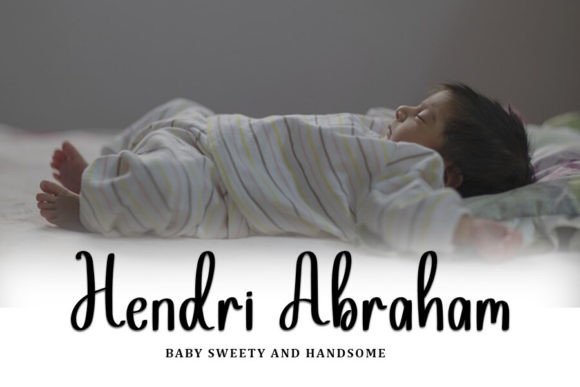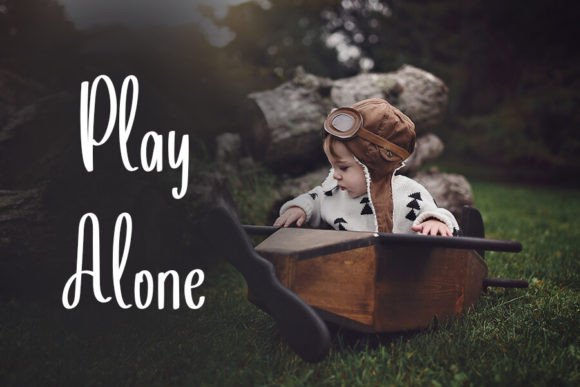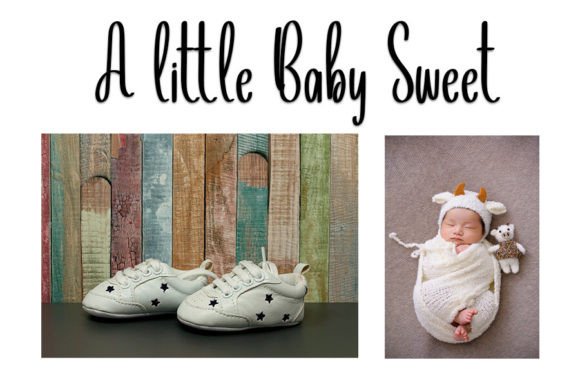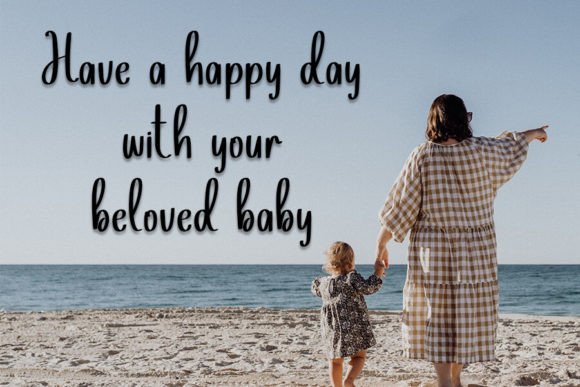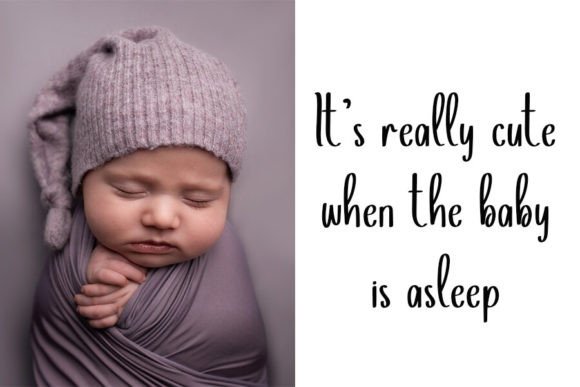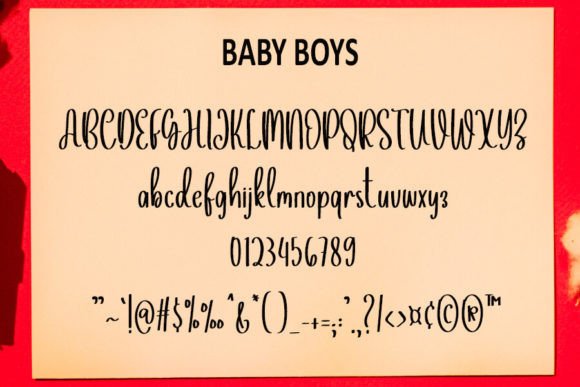
Meet the Perfect Companion for Your Creative Projects
As designers, we’ve all been there – staring at a blank canvas, trying to bring our ideas to life. Sometimes, it’s just a matter of finding the right tool to spark inspiration. For me, it was discovering the Baby Boys Font. Its stylish handwritten feel instantly caught my attention, and I knew I had to learn more.
Baby Boys Font is a beautifully crafted, contemporary font that draws inspiration from timeless classic calligraphy. With its balanced and varied strokes, it’s the perfect addition to any project that requires a touch of elegance and sophistication. Whether you’re designing a wedding invitation, a children’s book, or a brand identity, Baby Boys Font is sure to elevate your work and make it stand out.
Baby Boys Font Key Features
- Font Family: A unique, playful script font designed for baby-related products and applications.
- Unique Characteristics: Features a hand-drawn, cursive style with whimsical flourishes and subtle texture, adding a personal touch to designs.
Designer Review: Baby Boys Font
Overall, I think Baby Boys Font has some great qualities that could make it a fun addition to any project. ✨ Here are a few things that stood out to me:
- Unique and playful style: Baby Boys Font has a fun, whimsical feel that’s perfect for projects that need a lighthearted touch.
- Good for display text: The font is well-suited for headlines and titles, where its bold and eye-catching style can really shine.
- Customizable: Baby Boys Font offers a range of customization options, including different font weights and styles, which can be useful for projects where you need to match the font to a specific design aesthetic.
However, there are also some limitations to consider: ⚠️
- May not be suitable for body text: While Baby Boys Font is great for headlines, it may not be the best choice for larger blocks of text, as it can be difficult to read at smaller font sizes.
- Limited language support: Baby Boys Font may not include support for certain languages or character sets, which could limit its use in projects that require internationalization.
Overall, I think Baby Boys Font is a solid choice for projects that need a playful, eye-catching font. However, it’s worth considering its limitations and using it judiciously to get the most out of its unique style.
Use Baby Boys Font for:
- Baby shower invitations and gifts
- Children’s clothing and accessory labels
For the most effective use of Baby Boys Font, use it in conjunction with bold colors and playful graphics to create a fun and energetic design.